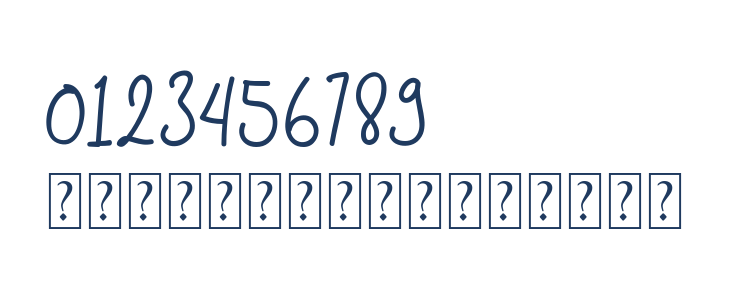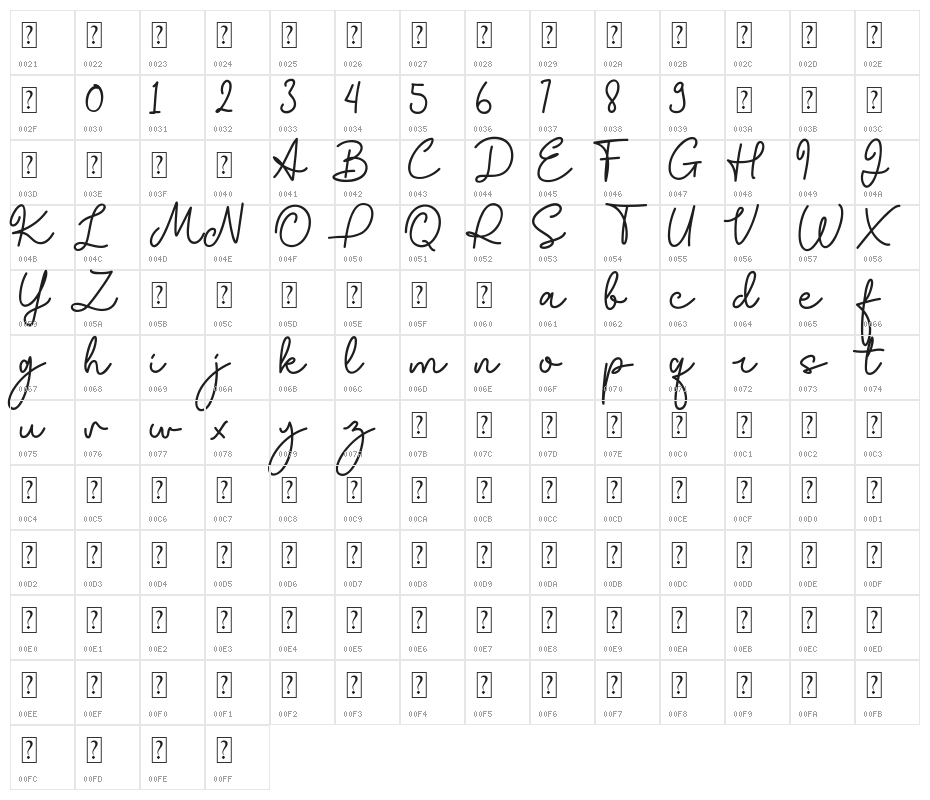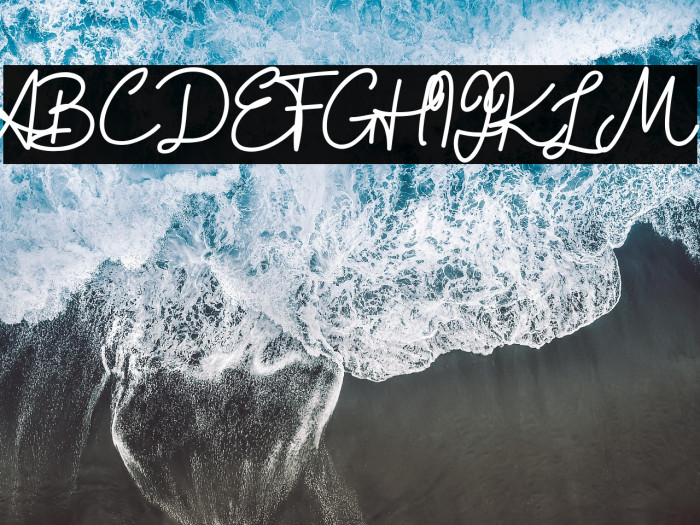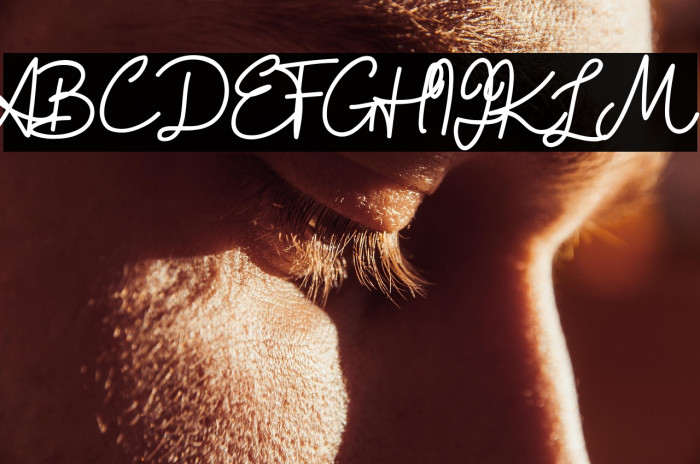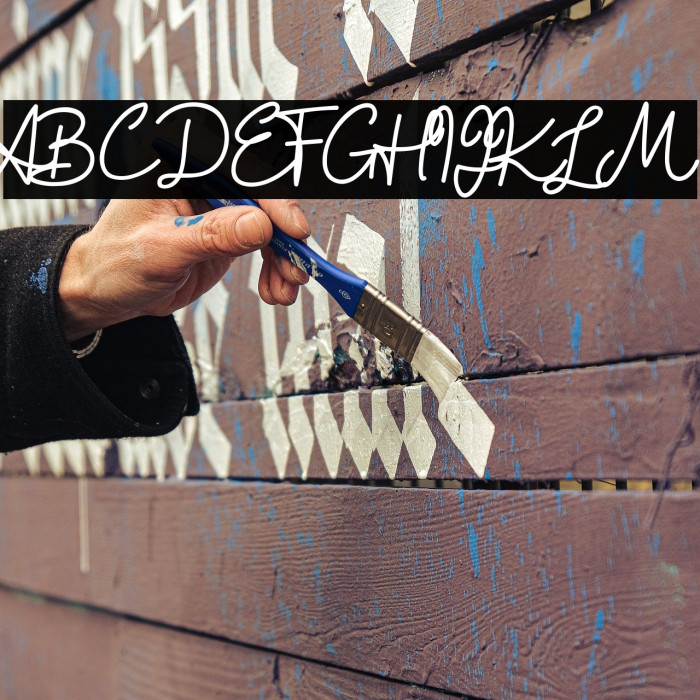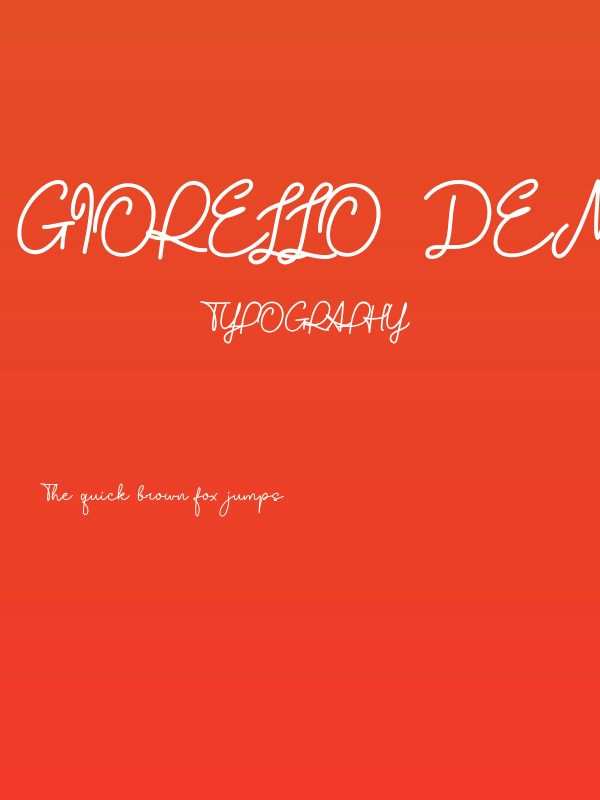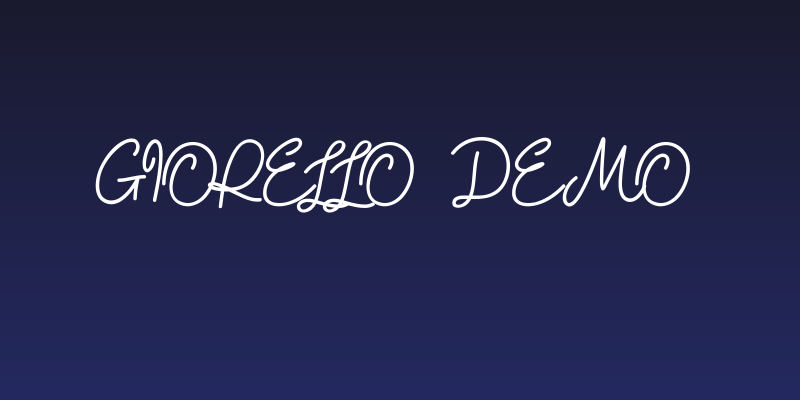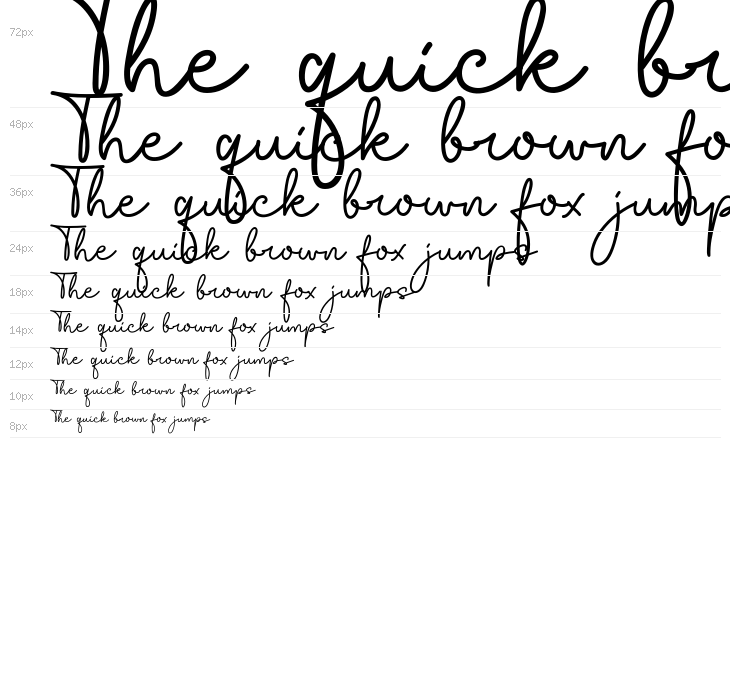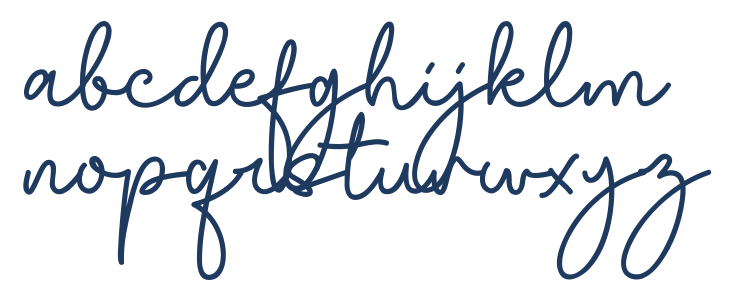
Giorello Demo Font
Giorello Demo Description
This font features a flowing, cursive style with a handwritten appearance. The uppercase letters are elegantly looped and connected, giving a sense of fluidity and movement. The lowercase letters maintain a consistent style, with smooth curves and a natural, organic feel. The numerals are clear and legible, designed to complement the overall script style. This font exudes a personal touch, making it ideal for projects that require a humanistic and approachable aesthetic. The characters are well-spaced, ensuring readability while maintaining the artistic flair of the script.
| Use Case | Logos, Invitations, Personal Branding |
| Proposed Projects | Ideal for wedding invitations, personal branding, greeting cards, and other creative projects that benefit from a personal touch. |